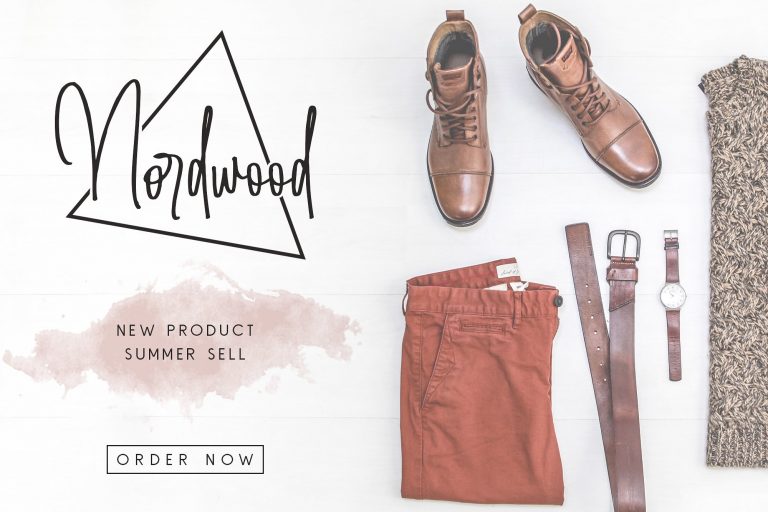
Amanda Santiago Script Font
Amanda Santiago – a new fresh handmade signature font. It is designed and shared by Runsell Studio. Amanda Santiago that can make your design look authentic and handcrafted. Amanda Santiago comes with 4 style and 1 modern sans. The both of them perfect for the signature, logotype, wedding invitation, quotes art, website header, packaging, branding, business card, fashion magazine and more.